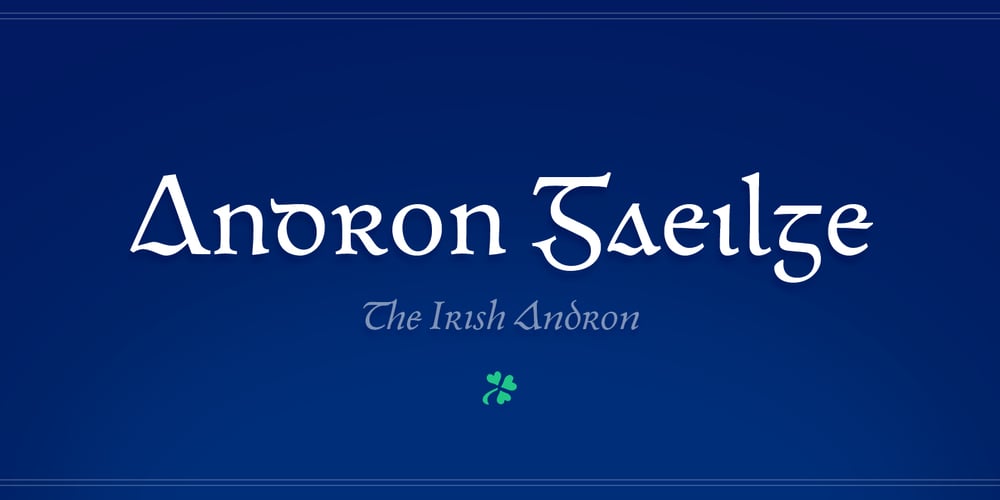
Andron 2 EIR Corpus Font Family was designed by Andreas Stötzner and published by SIAS. Andron 2 EIR Corpus contains 5 styles and family package options. SIAS opens a new chapter in Irish vernacular typography: the Andron-2-Irish font family. The genes of the insular typographic heritage have been blended with the timeless classical style of the versatile Andron series. Whereas most Irish-style fonts available more or less stick to ancient designs, Andron-2-EIR is different: it’s an entirely new design in which Irishness meets the beauty of a matured Venetian Roman text face. Envision a new horizon for setting Irish text in its own visual mode! Now you can utilize Italics, Semibold and Small capitals for Irish just as you have been doing in other languages for a long time. But the icing on the cake is the fifth font: Andron Irish Middlecase honours the rich medieval tradition of Ireland by a special uncial-style glyph set. It corresponds to the Andron MC series. Last but not least the Irish type connoisseur will relish this font package for it’s unique utilization of Opentype functionality. In Opentype-aware applications, by just ticking a box you can switch to the special insular forms of s and r. By ticking another box you can transform the text from modern-day orthography to the traditional spelling with lenited consonants. This built-in intelligence has never been implemented in any Irish font before. Briefly, the Opentype substitution features are: [Ligatures] – default basic f-ligatures; [Descretionary Ligatures] – more ligatures for typographic reason, mainly t- and long-s-combinations; [Style set 1] – turns all lowercase r and s into their insular glyph variants; [Style set 2] – replaces all consonant-h digraphs by dotted consonants (ḃċḋḟġṁṗṡẛṫ, ḂĊḊḞĠṀṖṠṪ), works for lowercase, uppercase and upper-lowercase alike; [Style set 3] – provides another range of additional special ligatures (for Regular and Italic only); [Oldstyle figures] – turns the default lining figures into proportional oldstyle figures. Andron Irish will also perfectly combine with every other Andron product in mixed settings. For an overview please go to the SIAS main page. For a quick reference go to Andron Latin, Andron Greek, Andron English or Andron MC. For more wonderful new Irish fonts look at Hibernica and Ardagh!